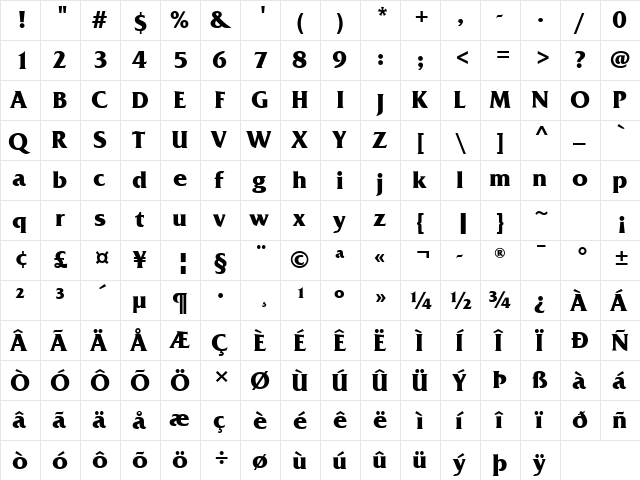
Friz Quadrata Com Bold
| Foundry | Linotype GmbH |
| Designer | Victor Caruso |
Design Context for Friz Quadrata Com Typeface
Friz Quadrata Com is a composed and adaptable typeface that performs quietly and consistently across a wide range of design contexts. The heavy weight commands attention and anchors typographic hierarchies.